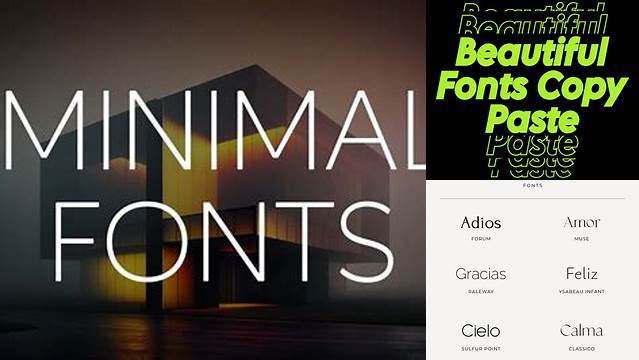
Minimalist Fonts: Copy & Paste For Stunning Designs
Are you looking to elevate your designs with a touch of simplicity and elegance? Well, guys, you're in the right place! We're diving headfirst into the world of minimalist fonts, perfect for crafting clean, modern aesthetics. Forget the fussy, overly decorated typefaces; we're talking about sleek lines, uncluttered forms, and a whole lot of visual impact. These fonts are your secret weapon for creating a polished look, whether it's for your website, a branding project, or even a personal invitation. Plus, I'm going to show you how to copy and paste these beauties, making your design process a breeze. Let's get started!
What Makes a Font Minimalist?
So, what exactly is a minimalist font? At its core, it's about less is more. These fonts strip away unnecessary flourishes, opting for essential shapes and forms. Think of it like this: if a font were a car, a minimalist font would be a Tesla, all smooth lines and futuristic simplicity, while a non-minimalist font might be a classic car loaded with chrome and intricate details. Minimalist fonts are all about functionality and readability. They focus on clear communication, ensuring your message gets across without visual distractions. They often feature clean lines, consistent weights, and a sense of balance. This results in a timeless look that works well in various contexts, from website headers to product packaging and everything in between. The beauty of minimalist fonts lies in their versatility. Because they're so clean, they can easily complement a variety of design styles and color palettes. They're not trying to steal the show; instead, they work to support your overall design vision. They often come in a range of weights, allowing you to create visual hierarchy and emphasize specific elements, all while maintaining that streamlined aesthetic. Understanding the characteristics of these fonts is crucial for making the right choices for your projects.
When selecting a minimalist font, consider factors like readability, the overall style you want to achieve, and the specific use case. Some fonts excel in headlines, while others are better suited for body text. Some are more geometric and modern, while others lean towards a more classic and understated feel. The goal is to find the perfect font that enhances your content and design, without overpowering it. A good minimalist font should be legible in all sizes, from the smallest body text to the largest headlines. It should also have a consistent look across different characters and weights, creating a cohesive feel throughout your design. Consider the personality of the font as well. Does it feel professional and serious, or more playful and casual? The choice depends on your brand and the message you want to convey. In the end, minimalist fonts provide a powerful way to communicate your ideas effectively, all while maintaining a clean and modern aesthetic. These fonts help make your designs look sleek and sophisticated, making a memorable impact on your audience. Keep an eye out for those classic characteristics: clear lines, simple shapes, and a focus on readability. These are the building blocks of a truly awesome minimalist font.
Top Minimalist Fonts to Copy and Paste
Alright, let's get to the good stuff: the fonts! Here are some top-notch minimalist fonts that you can easily copy and paste to start using right away. I've included a brief description of each to help you choose the perfect match for your project. Ready to level up your design game? Let's go!
1. Roboto
Roboto is a modern sans-serif font family developed by Google. It's incredibly versatile and perfect for both headings and body text. It's known for its geometric shapes and friendly appearance, making it a great choice for various applications. You'll find it widely used across the web and in print, loved for its high readability and clean aesthetic. I'm a big fan of Roboto, and I think you will be too. It's got a fantastic range of weights, so you can play with different thicknesses to create contrast and emphasis. Because it's so accessible and easy to read, it's an ideal choice for any designer looking for a no-fuss, reliable minimalist option. Its rounded corners and open shapes give it a welcoming feel, making it a great choice for websites, apps, and general design projects. Its simple and clean design makes it a popular font.
2. Open Sans
Open Sans is another popular sans-serif font designed by Steve Matteson. Its friendly appearance and excellent readability make it a go-to choice for many designers. Open Sans is designed for excellent readability on both print and screens. The font's open forms and neutral style make it a versatile choice for various design applications. The open nature of the forms contributes to its easy readability, making it a solid option for extensive use. You'll see it everywhere, from website body text to user interfaces. Like Roboto, it comes with a wide range of weights, providing you with the flexibility to create visual hierarchy and design more complex layouts. This font is a workhorse, reliable, and effective for a wide range of projects. This font offers a clean and straightforward appearance that suits various design projects.
3. Lato
Lato, designed by Ćukasz Dziedzic, is another sans-serif font that balances warmth and professionalism. Its semi-rounded letterforms and clean style make it suitable for various design uses. Its friendly and approachable look makes it a great option for a variety of projects. Lato is available in a wide range of weights and styles, making it an adaptable choice for everything from headings to body text. It's clean, modern, and easy on the eyes, perfect for websites, branding, and other design needs. The semi-rounded shapes give it a subtle personality, but it's still incredibly versatile. Consider this font if you want something that's visually appealing and easy to read. Itâs a great choice for both print and digital applications, delivering a polished and professional look. The font is well-suited for creating a balanced and visually appealing design.
4. Montserrat
Montserrat, inspired by the urban typography of the Montserrat neighborhood in Buenos Aires, is a geometric sans-serif font with a modern feel. It's perfect for headlines, logos, and display text. This font family includes a wide range of weights and styles, providing you with the versatility needed to create stunning designs. It's a versatile font that fits well in many design contexts. Its clean, modern aesthetic and high x-height make it a top choice for many designers. Montserrat's bold and distinctive appearance makes it great for grabbing attention. If you want something that stands out, consider using this font! It gives a touch of personality without overwhelming your design. The urban-inspired design brings a modern flair to your designs. With its range of weights and styles, it can fit any design project. Use it to give your design a sophisticated touch.
5. Raleway
Raleway is an elegant sans-serif font characterized by its sleek design and multiple weights. It's perfect for creating a sense of sophistication and modern design. Designed as a single weight, it has expanded into a family with a range of weights and styles. This font is suitable for both headlines and body text. Its refined and professional appearance makes it a great option for many projects. Its distinct style is suitable for creating a cohesive and elegant design. The font's versatility and clean look make it ideal for various design projects. If you want to give your design a stylish and clean look, then this is a great font. This font is often used in both digital and print designs, providing a classic and refined aesthetic.